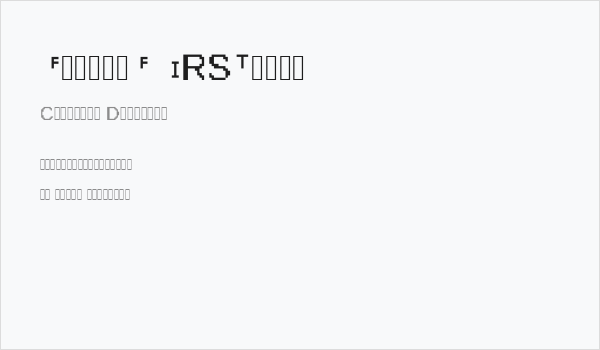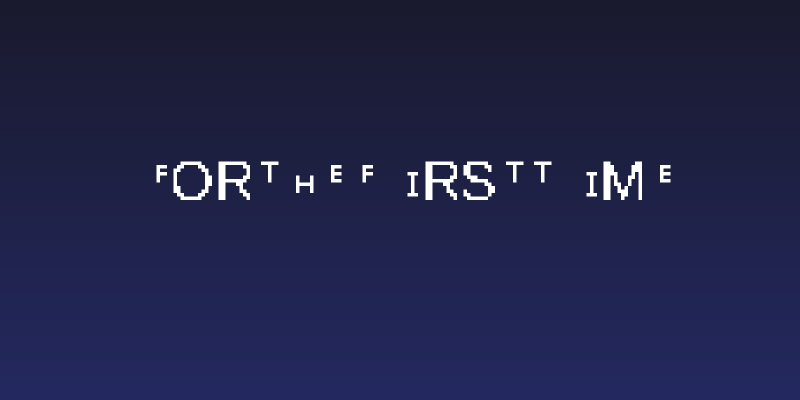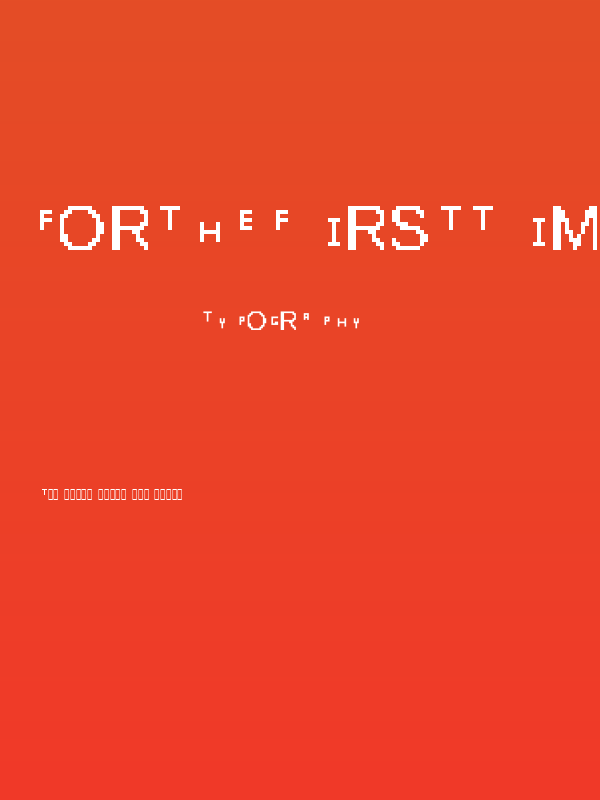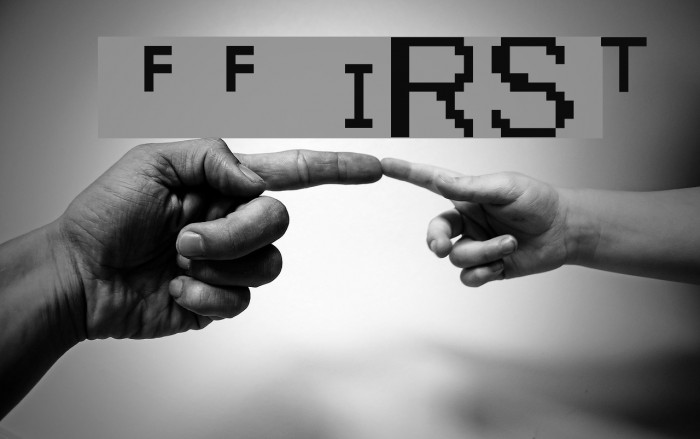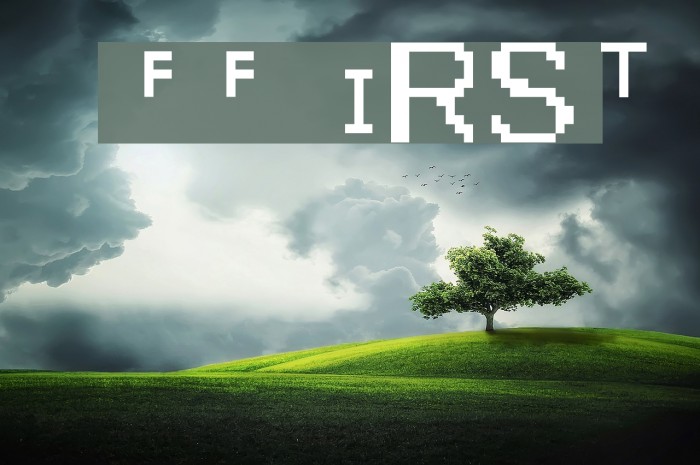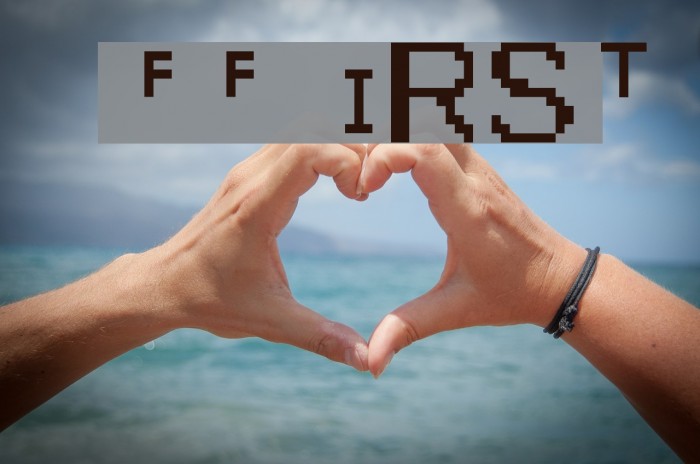
FortheFIRSTtime Font
FortheFIRSTtime Description
This font features a pixelated, blocky style reminiscent of early digital or video game typography. The characters are composed of small, square pixels, giving it a retro, 8-bit appearance. The uppercase letters are bold and prominent, while the lowercase letters maintain the same pixelated structure, ensuring consistency across the typeface. The numbers and special characters also follow this blocky, pixelated design, making the font suitable for digital-themed projects. The overall aesthetic is nostalgic and playful, capturing the essence of classic arcade games.
| Use Case | Headlines, Logos, Digital Art |
| Proposed Projects | Ideal for video game design, retro-themed posters, digital art, and any project seeking a nostalgic, arcade-inspired look. |